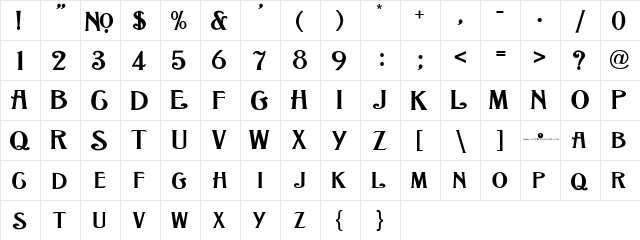
LHFGrantAntique Medium Font Preview
LHFGrantAntique Medium
Design Context for LHFGrantAntique Typeface
LHFGrantAntique has the warm character of retro typography — evoking diners, record sleeves, and the golden age of print advertising.
Perfect for vintage-inspired branding, retro packaging, nostalgia campaigns, and period-accurate editorial design.
Font Pairing: Combine LHFGrantAntique with a simple slab or neutral sans — period-accurate companions reinforce the vintage feel without competing for attention.
Pro Tip: Use LHFGrantAntique for headlines and pull quotes rather than body copy — its personality is best appreciated in short, focused bursts.